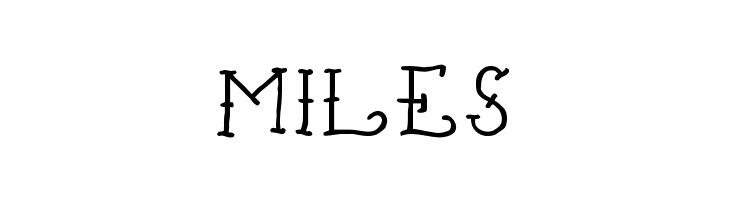
A bold, playful font with thick, rounded shapes and a whimsical style.
A playful, bubbly outline font with a retro vibe.
A playful, bold font with rounded, bubble-like characters.
A bold, handwritten font with a brush-like texture and dynamic style.
A whimsical script font with elegant loops and playful strokes.
A playful, handwritten-style font with a casual and friendly appearance.
A modern, elegant script font with flowing, cursive letters and dynamic contrast.
Elegant handwritten script font.
A modern, handwritten font with elegant, flowing characters.
A playful, handwritten font with smooth curves and a casual style.
A bold, jagged font with sharp, angular edges and a dramatic, intense style.
A playful, hand-drawn font with rounded, bold characters.
A playful, handwritten font with quirky loops and curves.
A lively, flowing script font with elegant cursive letterforms.
A flowing, cursive font with an elegant and dynamic handwritten style.
Casual handwritten font with rounded, playful forms.
An ornate and decorative font with intricate swirls and circular frames around each letter.
A bold, handwritten font with a lively and energetic brush-like style.
A playful, handwritten font with a casual and dynamic style.
An elegant, flowing script font with graceful curves and thin strokes.
A bold, flowing script font with elegant curves and decorative flourishes.
A bold, playful font with a hand-drawn, quirky style.
An elegant, flowing script font with a sophisticated and graceful appearance.
A playful, bold, and hand-drawn style font with a whimsical touch.
A lively, expressive handwritten font with flowing, cursive letters.
A bold, brush-style font with dynamic and lively strokes.
A playful, bold font with a hand-drawn, whimsical style.
A playful, bold font with rounded, decorative letterforms.
A bold, expressive handwritten font with fluid strokes and a modern flair.
A whimsical and playful font with decorative, curly serifs and a hand-drawn appearance.
A playful, nautical-inspired monoline font with whimsical curves and consistent stroke width.
A playful handwritten font with smooth curves and a casual style.
A playful and expressive handwritten font with dynamic cursive letterforms.